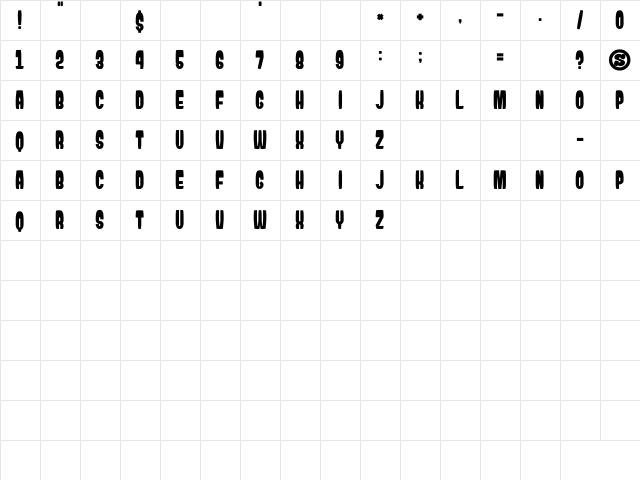
Atama Naga Regular
Design Context for Atama Naga
Atama Naga is a composed and adaptable typeface that performs quietly and consistently across a wide range of design contexts.